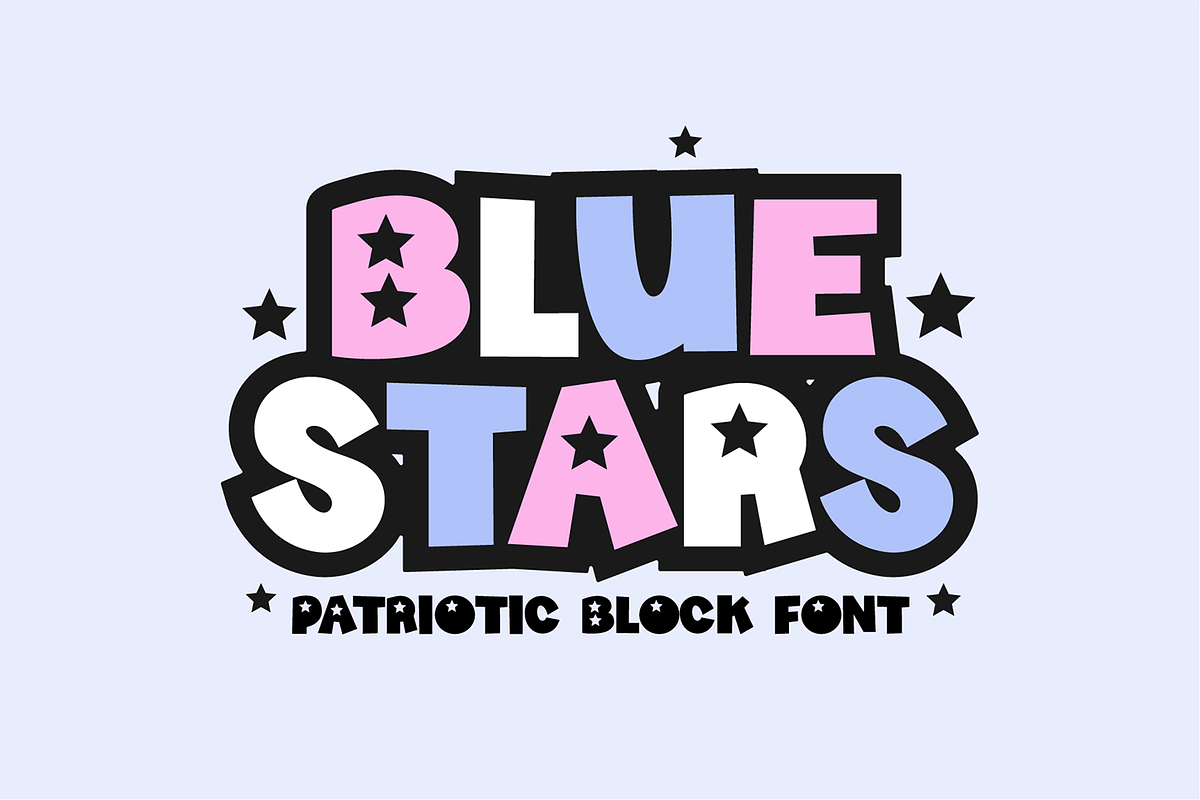
BLUE STARS 4th of July Star Font Free Download
BLUE STARS 4th of July Star Font Free Download is a festive and patriotic typeface designed to celebrate Independence Day in bold, star-spangled style. With decorative star elements built into the letterforms, this font is perfect for 4th of July party invites, event banners, T-shirt designs, parade flyers, and patriotic-themed social media posts. It radiates energy, freedom, and celebration.
Using the BLUE STARS 4th of July Star Font Free Download adds an all-American flair to your designs, making them stand out with red, white, and blue pride. Whether you’re crafting for print or digital, this font instantly brings that firework-worthy excitement to your project.